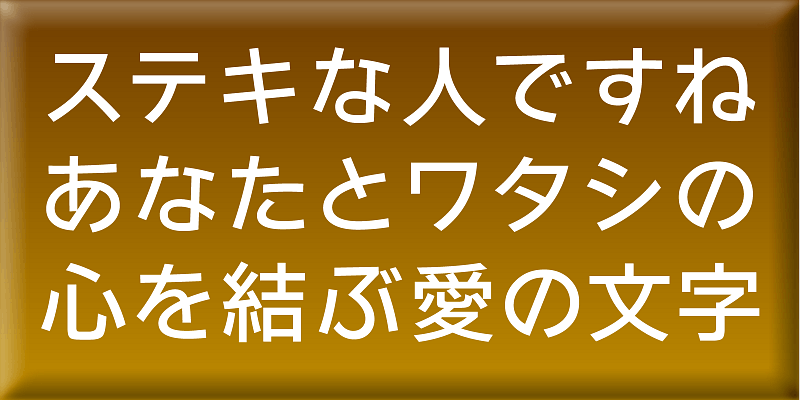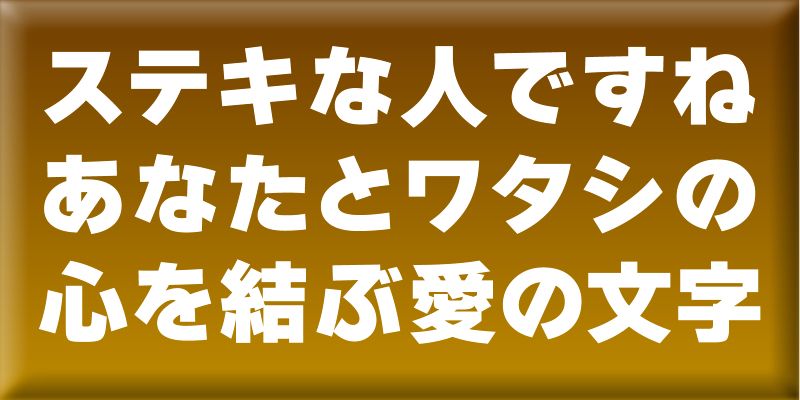
Clear, legible, friendly-looking kana characters and calm kanji characters create a bright and energetic effect. Convey your messages clearly and frankly.
Through typeface designs, we aim to convey a meaning beyond the textual content. Typefaces that allow users to clearly convey their full meaning. Typefaces that both typesetters and readers will enjoy. These are the kind of typefaces that we aim to create.